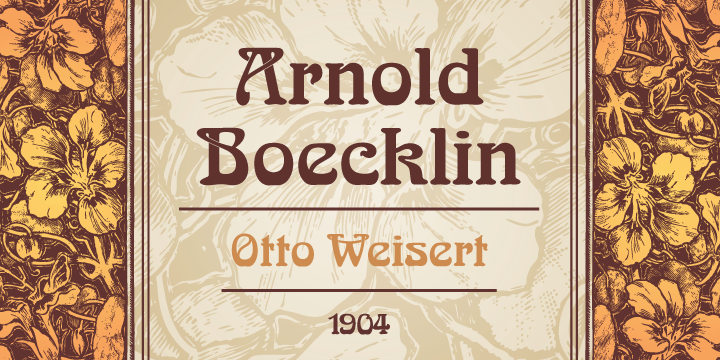
Arnold Böcklin Font is ideal for Art Nouveau posters, vintage advertising designs, decorative book covers, artistic event invitations, gallery exhibition materials, antique shop branding, historic preservation projects, theatrical productions, wine label designs, and premium craft packaging. This distinctive decorative typeface brings authentic turn-of-the-century artistic expression and ornamental elegance to creative design applications.
What makes Arnold Böcklin Font so exciting is its remarkable ability to capture the essence of the Art Nouveau movement with its flowing, organic letterforms that seem to grow naturally like botanical specimens. Named after the famous Swiss symbolist painter, this font features distinctive characteristics including graceful curves, asymmetrical strokes, and nature-inspired flourishes that create an unmistakably artistic atmosphere. Each character displays handcrafted quality with subtle irregularities and organic variations that give text a living, breathing personality. The font's unique blend of readability and decorative appeal makes it perfect for projects that require both artistic sophistication and functional communication.
The Arnold Böcklin Font family includes multiple stylistic variations: Regular, Bold, and Ornamental versions with extensive decorative elements. The comprehensive character set features uppercase and lowercase letters with artistic alternates, numerals, punctuation marks, special ornamental symbols, and European language support. Additional features include swash characters, decorative initials, flourish elements, and period-appropriate ligatures that allow designers to create authentic Art Nouveau compositions with historical accuracy.
Whether you're designing vintage-inspired branding, artistic publications, or cultural event materials, Arnold Böcklin Font Free Download provides the authentic artistic typography that transforms ordinary text into visual art. Its exceptional decorative qualities make it perfect for headlines, logos, and display applications that demand artistic distinction and historical authenticity. The font's connection to fine art heritage and meticulous attention to period detail make it essential for designers seeking to evoke the romantic, nature-inspired aesthetic of the Art Nouveau era.